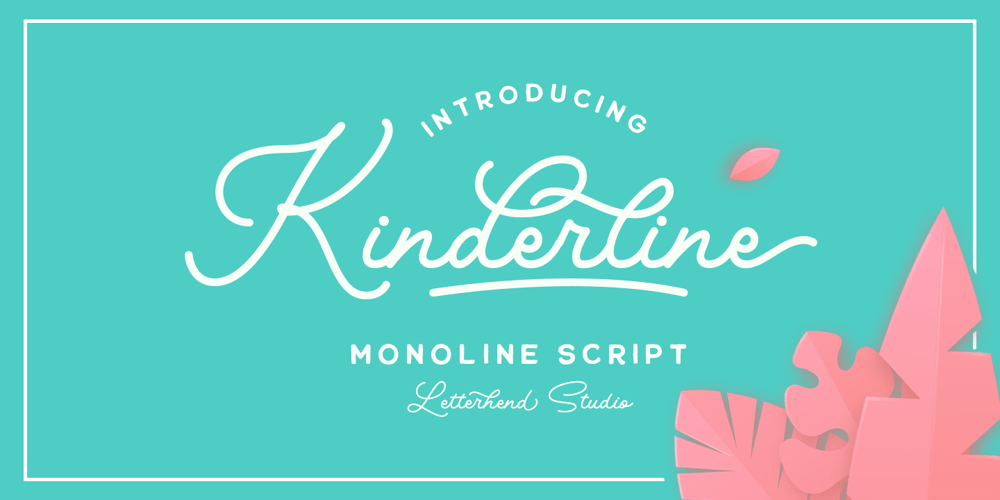
Kinderline Script Font Family was designed by Hendry Juanda and published by Letterhend. Kinderline Script contains 2 styles and family package options. Kinderline Script is a joyful and playful monoline script typeface. Very suitable to be used as a headline, instagram post and stories, logos, magazines, books, greeting/wedding cards, packaging, fashion, make up, stationery, novels, labels or any type of advertising purpose.